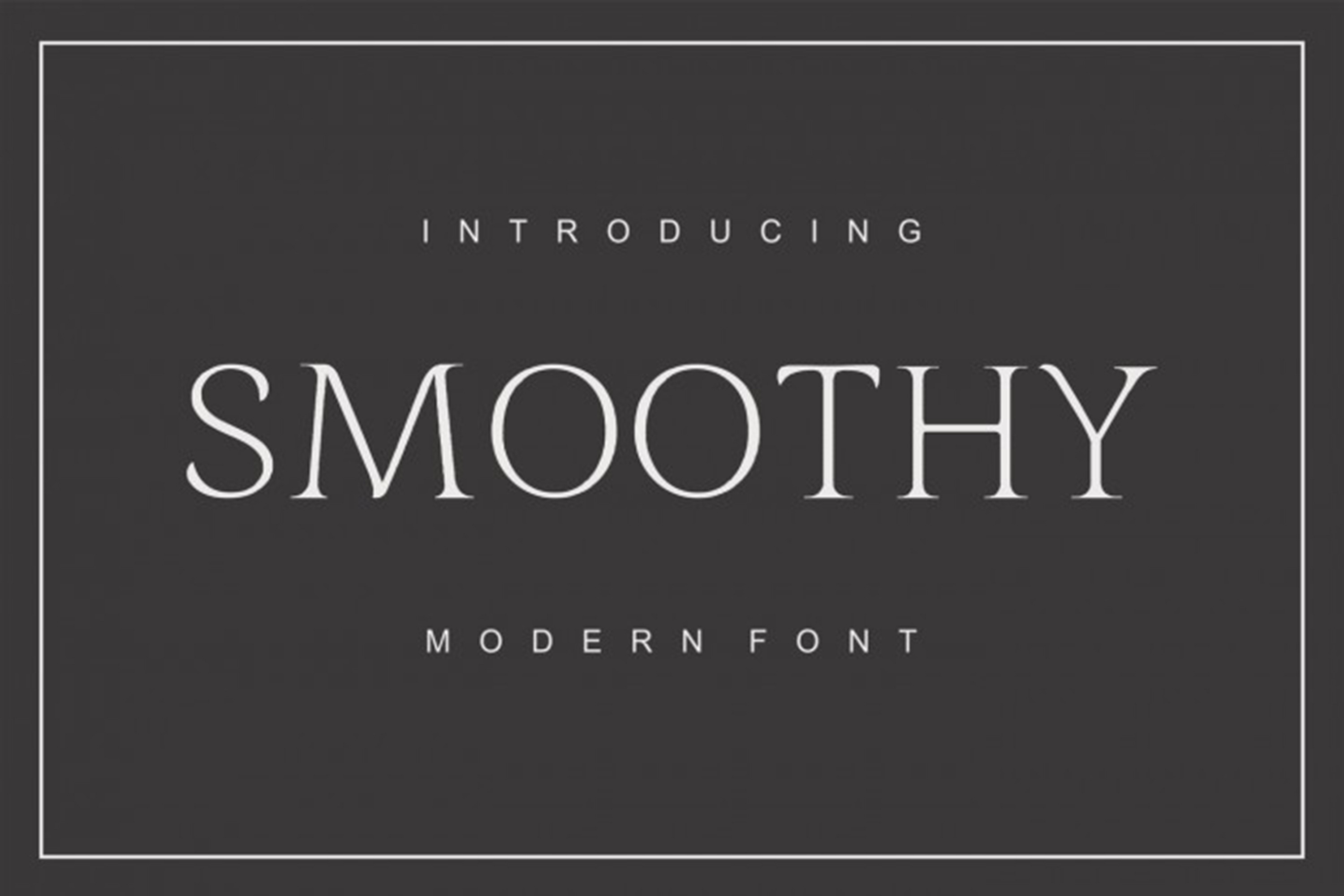
Smoothy - modern sans serif font
Smoothy is the typeface that represents straight smooth hand drawing like letters with round corners. This new designer font is ideal for covers and letters with mixed designs. Please refer to the list of possible uses we have created to help designers with inspiration and add your idea in comments section below. Short list of possible uses for inspiration:
Book covers or inside chapters section heading
Posters or postcards design
Party decorations and congratulation cards
Invitation letters and business envelopes
Text headings and graphic themes designs